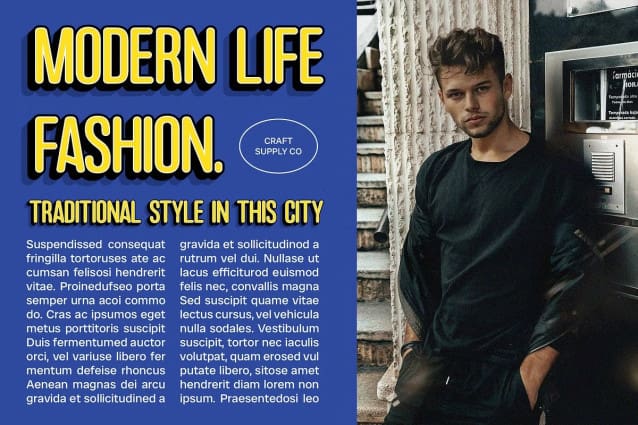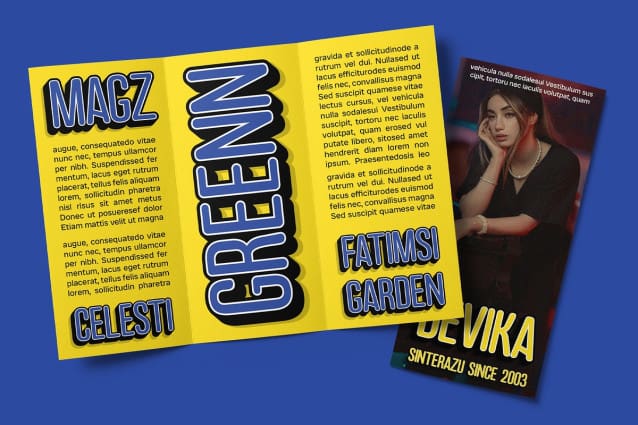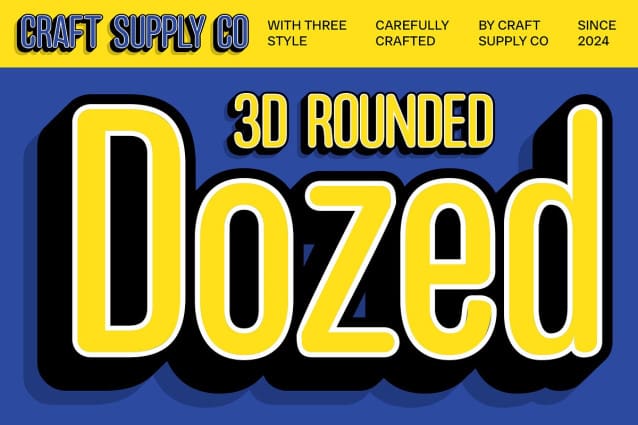
Dozed Rounded 3D Font
Dozed Rounded 3D Font is a modern condensed sans-serif font that features rounded shapes and a captivating 3D effect. Its sleek and stylish design makes it an excellent choice for contemporary projects that require a clean and dynamic appearance.
Perfect for Sleek Branding The rounded shapes and condensed form provide a modern and professional look, making this font perfect for sleek branding. Its distinctive design ensures that logos and brand materials stand out with a polished and contemporary feel.
Ideal for Contemporary Web Design Dozed Rounded 3D is ideal for contemporary web design, offering a fresh and modern aesthetic. The 3D effect adds depth and dimension, creating a visually engaging experience that enhances the overall look and feel of digital projects.
Eye-Catching Posters and Promotional Materials This font’s bold and dynamic appearance makes it perfect for eye-catching posters and promotional materials. The combination of rounded shapes and 3D effects ensures that your designs capture attention and leave a lasting impression.
Versatile and Modern Dozed Rounded 3D offers a versatile and modern solution for a variety of creative projects. Its sleek, condensed sans-serif design with rounded shapes and a 3D effect provides a stylish and dynamic look that elevates any design.